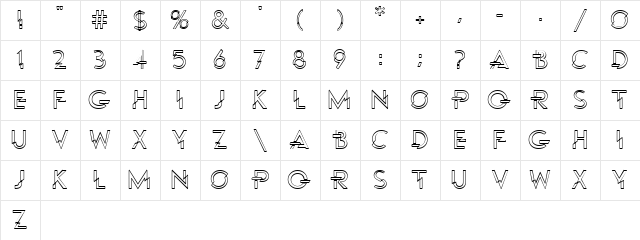
P Funked Hollow Regular Free Font
P Funked Hollow Regular
Design Context for P Funked Hollow
P Funked Hollow has an approachable, lighthearted character - its loose, expressive forms are well-suited to children's content, casual branding, and fun-first design.
Font Pairing: Pairs well with a rounded or humanist sans for body copy, maintaining the friendly tone without relying on P Funked Hollow to carry extended reading.
Pro Tip: Use P Funked Hollow at larger display sizes where its expressive character can land. Pair with a clean, simple sans for body copy to maintain readability.